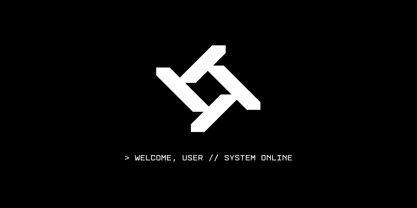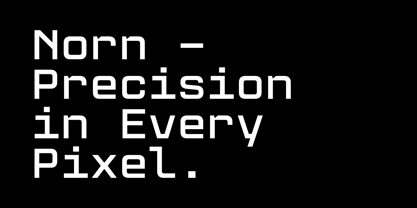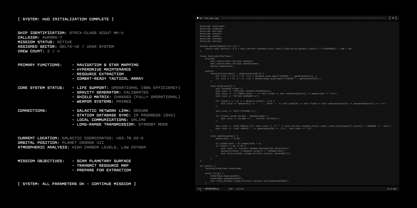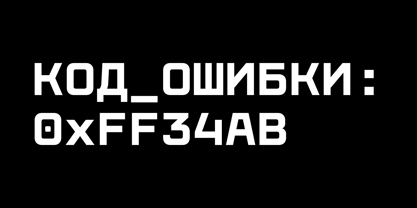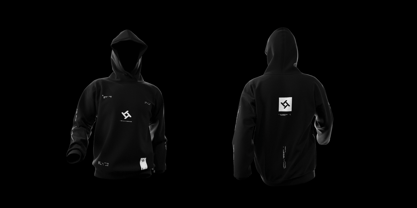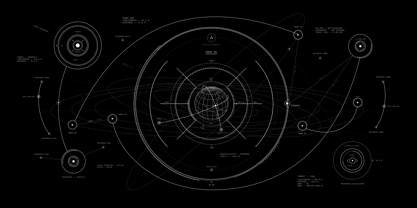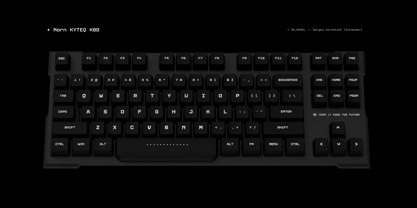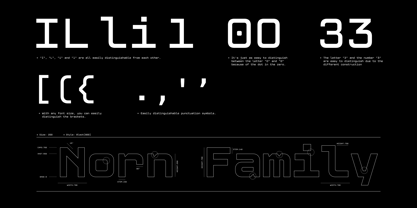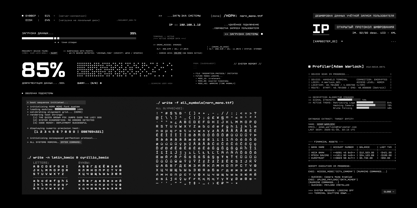
Norn Mono
by Harvester Type
The Norn Mono Font Family was designed by Eugene Bunin and published by Harvester Type. Norn Mono contains 5 styles and family package options. More about this family
Norn Mono is a monospaced font with a technical character. Norn is suitable for completely different purposes: whether it's programming, packaging design, FUI, in-game interface, logo or the main font on a website.
Norn has the spirit of the future, combining sci-fi, futurism, cyberpunk, hi-tech and other trends.
Great language support and font variability, a well-thought-out and tested font in many directions.
The font application is universal. It's a workhorse. Whether it's poster design, clothing design, industrial design, HUD, font for brand identity and corporate identity, font for social networks.